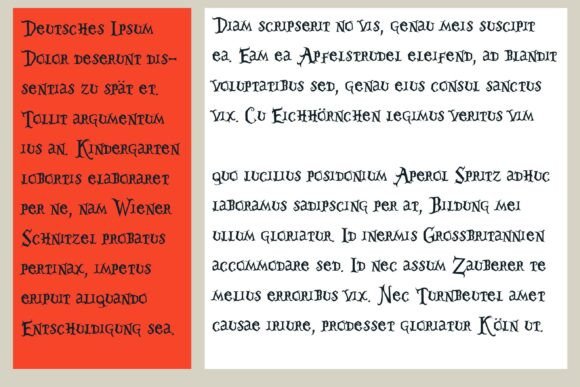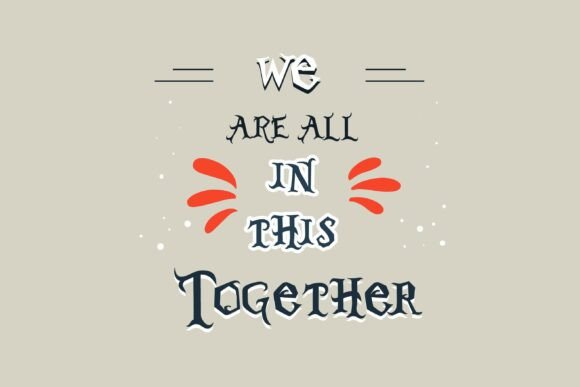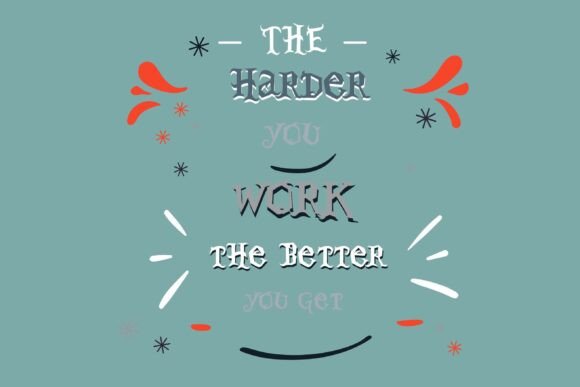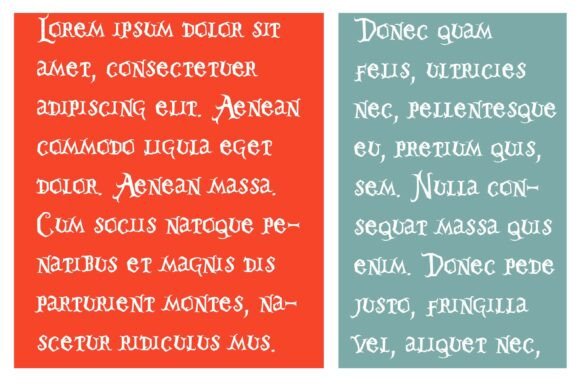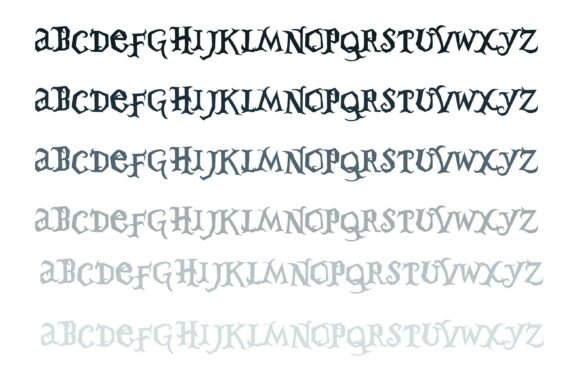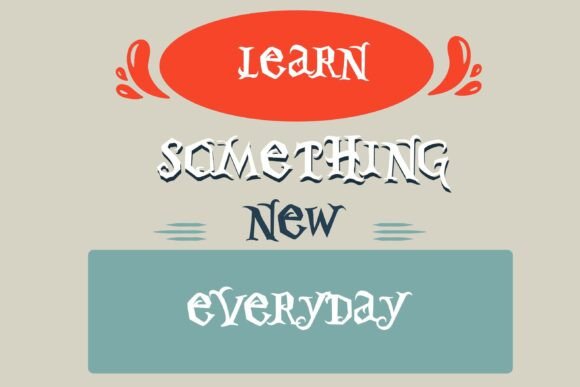
Introduction to Pn Wonderworld Fn Font
Pn Wonderworld Fn Typeface is a whimsical display font that blends fantasy elegance with a touch of gothic drama.
Its distinctive look comes from sharp, pointed serifs and imaginative curves that give the characters a fairytale-like personality The cute font combines structured medieval elements with quirky, unexpected details—like exaggerated terminals and playful proportions—evoking storybook magic and enchanted lands.
Key Features of Pn Wonderworld Fn Font